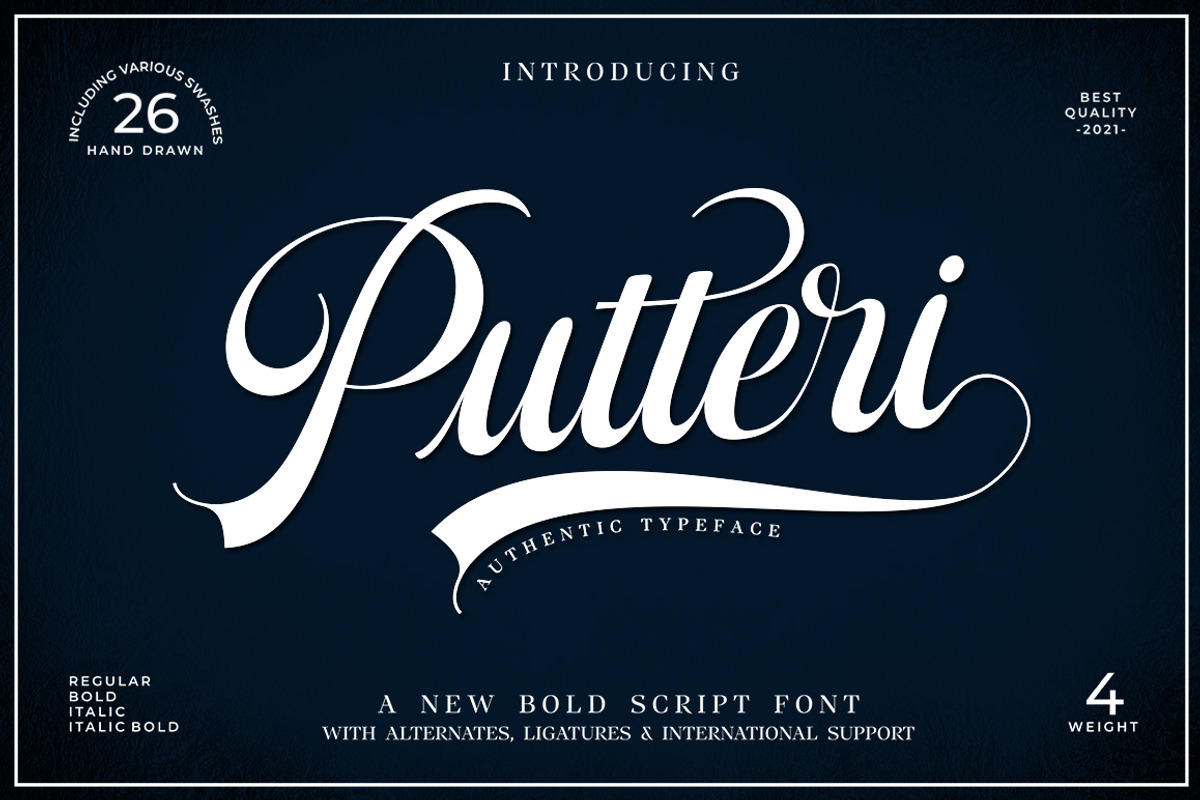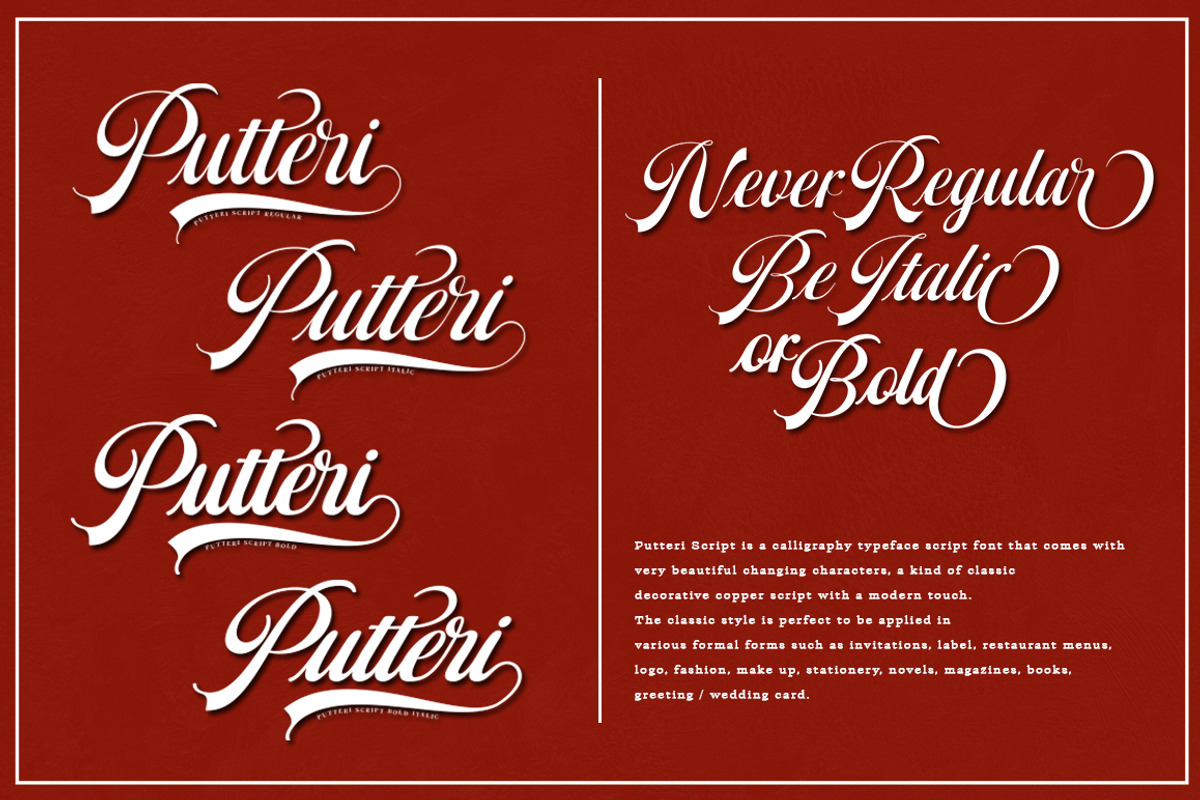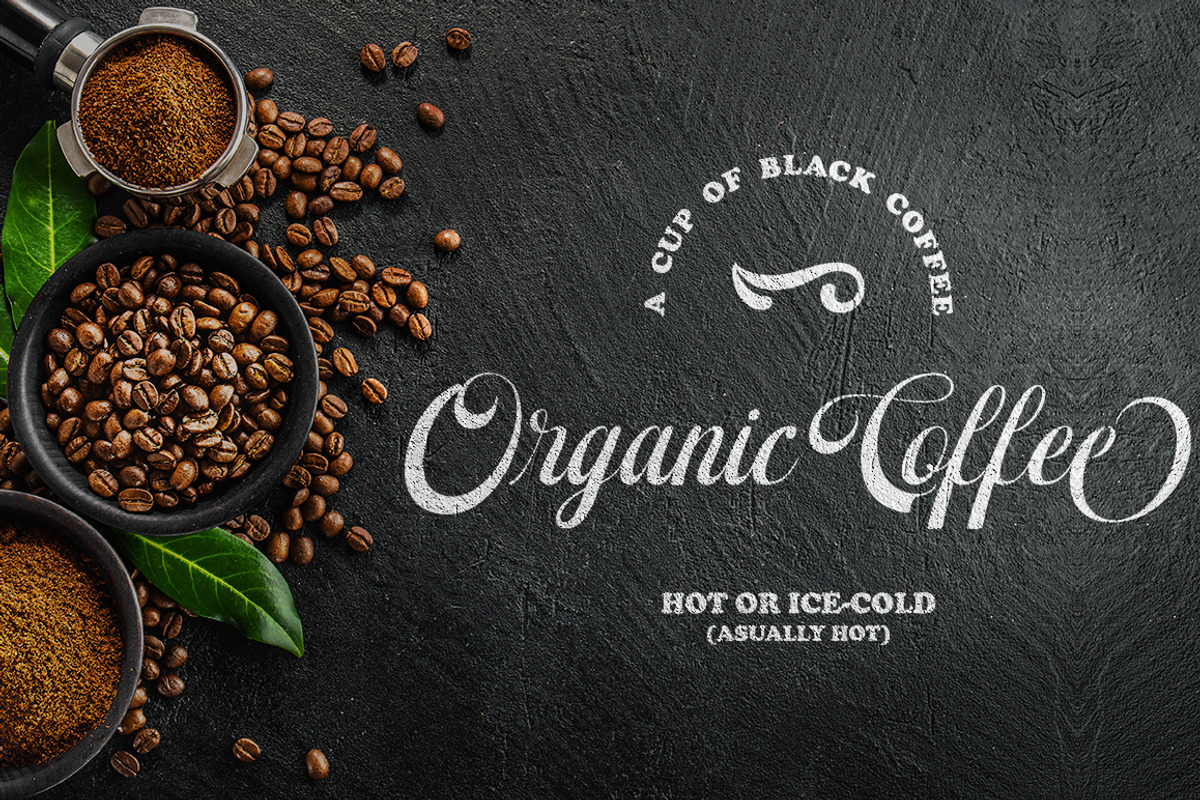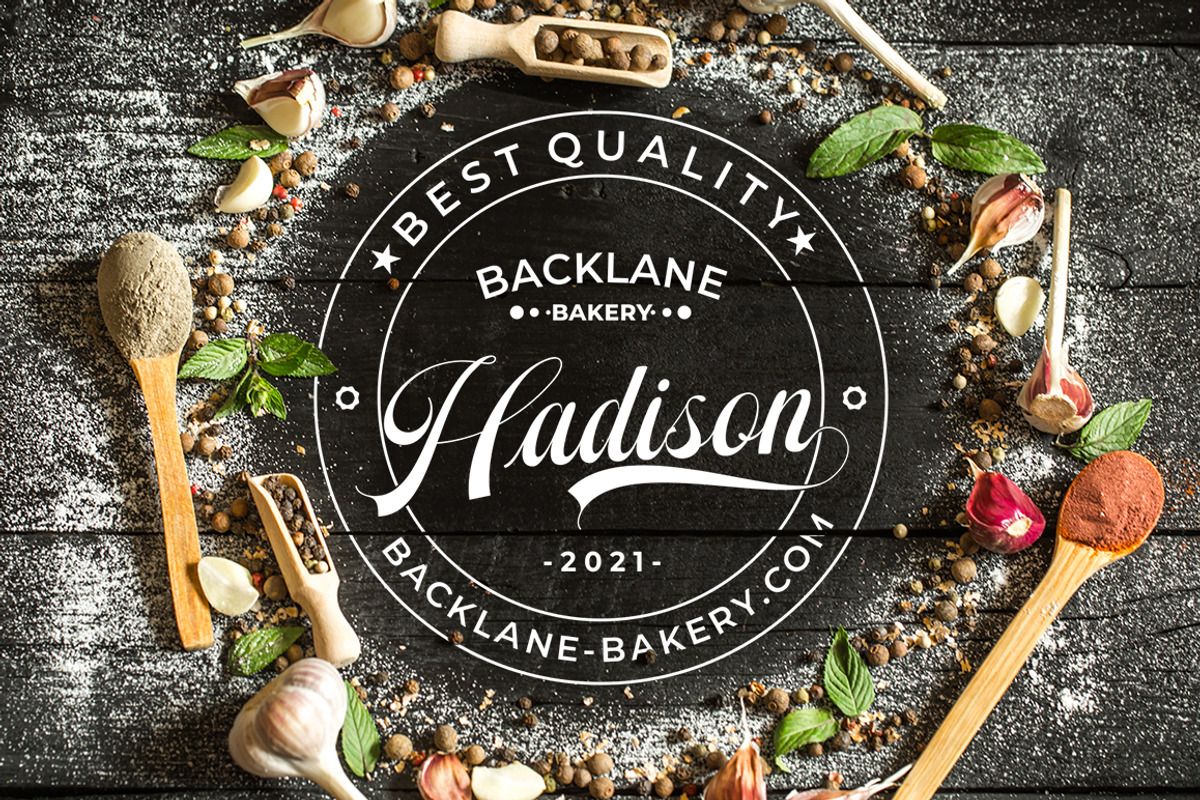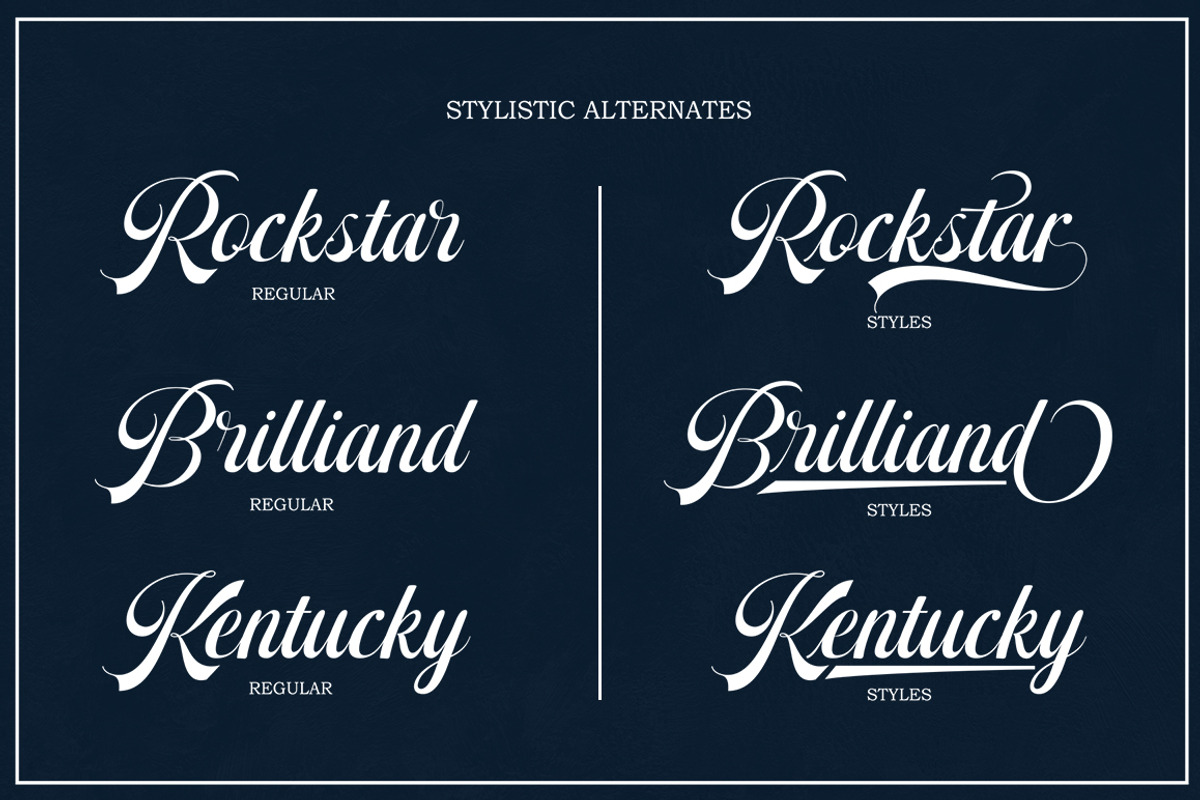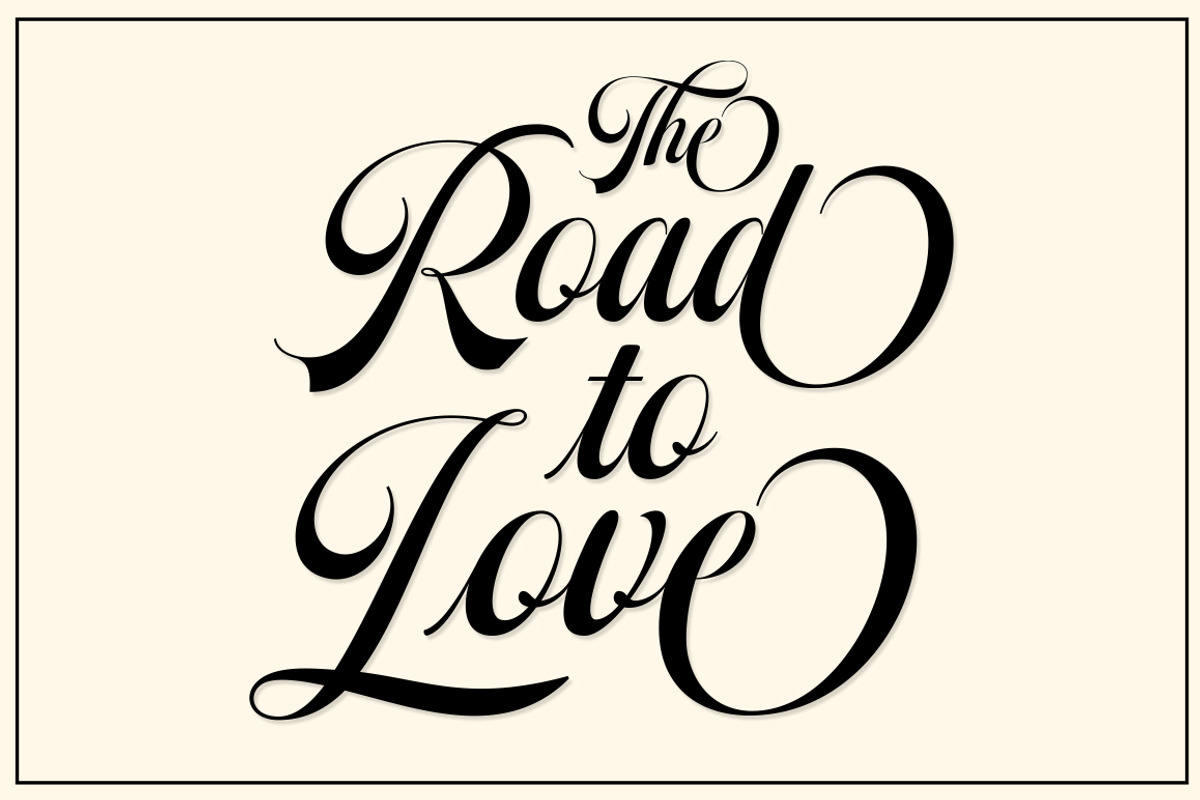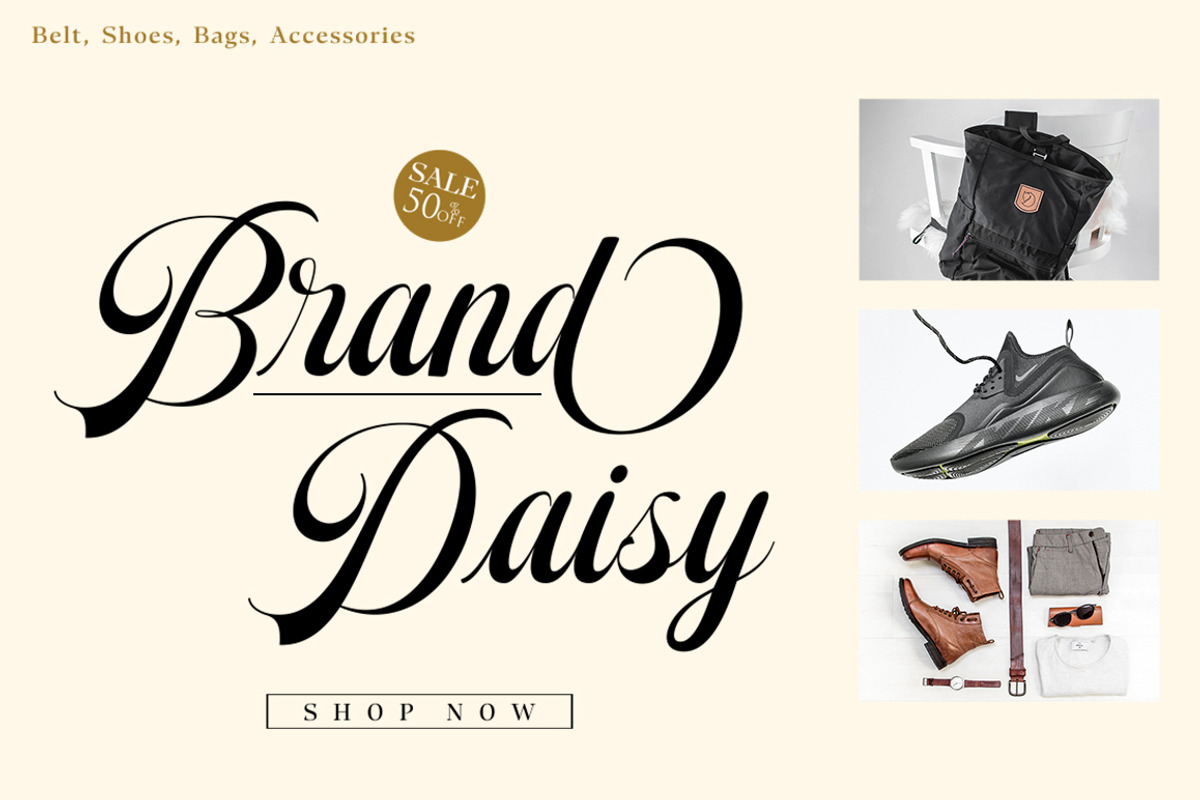
Putteri Script
INTRODUCING
Putteri Script This type is a soft typefaces. bold, elegant & fun vintage script font designed with high quality. Can be used for various purposes.such as logos, wedding invitation, t-shirt, letterhead, signage, news, posters, badges etc.
Putteri Script Font features alternate characters, ligatures, swash and multiple language support.